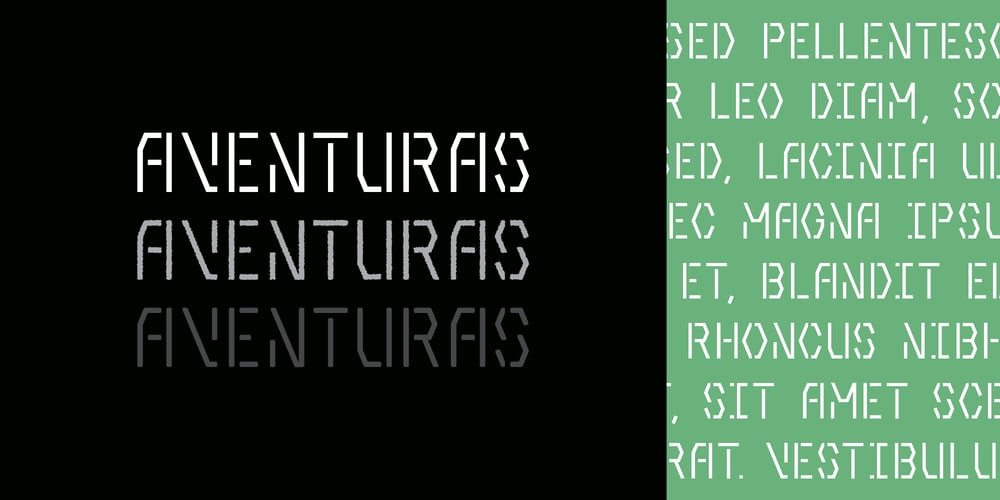
Aventuras Stencil Font Family was designed by Thomas Ramey and published by Thomas Ramey Design. Aventuras Stencil contains 3 styles and family package options. “Aventuras” is a dynamic and adaptable font crafted to add a striking presence to your design projects. Drawing inspiration from the spirit of adventure and discovery, this font seamlessly blends ruggedness with refinement, lending itself perfectly to a wide array of design applications.The hallmark of Aventuras lies in its distinctive stencil design, which imparts a contemporary and individualistic charm. This stencil effect infuses an industrial edge into the font, while its precise lines and defined edges maintain an air of sophistication.Despite its stencil style, Aventuras remains exceptionally legible and clear, making it a superb choice for headlines, posters, logos, and branding endeavors. Whether you’re crafting a robust outdoor poster, a contemporary industrial logo, or a sleek branding project, Aventuras is poised to make a lasting impact. Its bold and commanding design serves as a potent tool for designers seeking to make a bold statement with their typography.